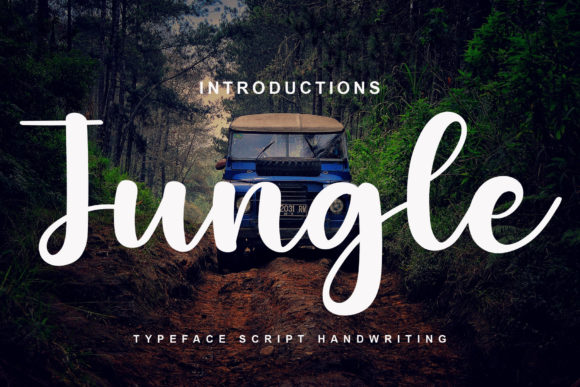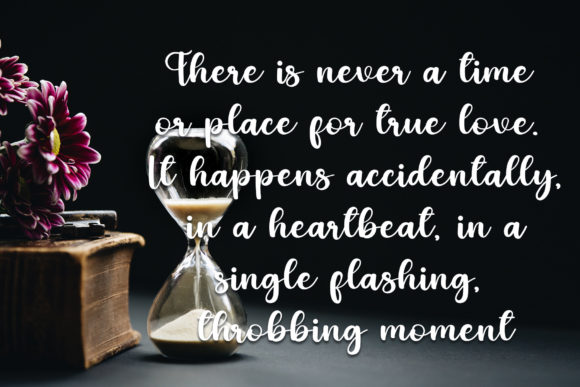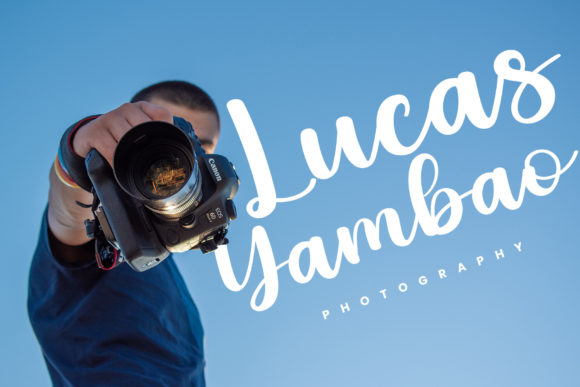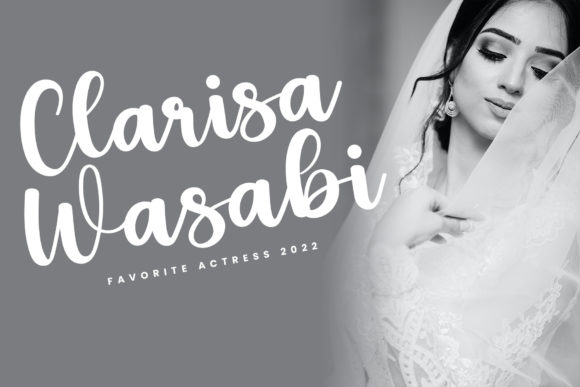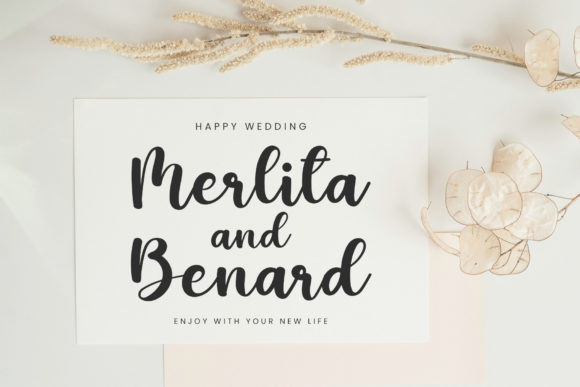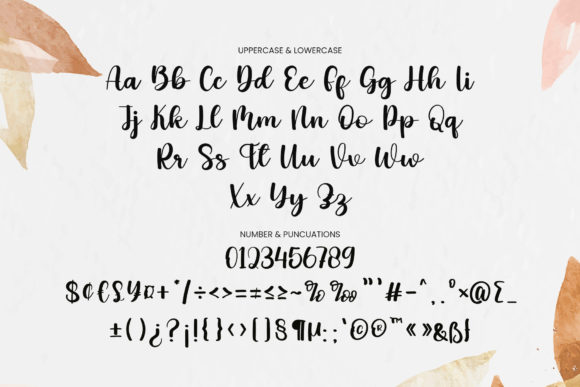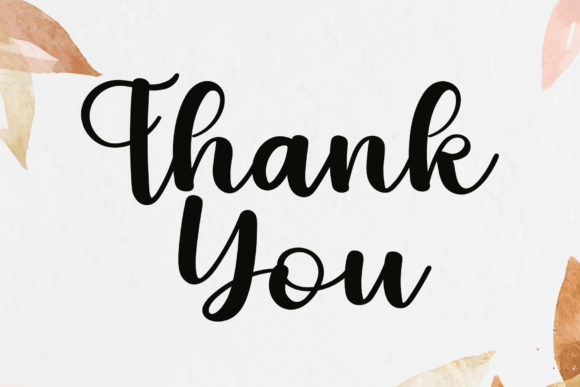
Jungle Font
Jungle, a delightful and approachable handwritten font, injects a sense of fun and friendliness into any design, transforming even the simplest ideas into standout creations. Its unique charm serves as an inspiration for designers looking to infuse a touch of playfulness into their projects, making Jungle a versatile choice for a wide range of design applications.
The handwritten nature of Jungle imparts a genuine and personal feel to your designs, creating a connection with the audience. Whether you’re working on invitations, greeting cards, or other expressive projects, Jungle’s friendly aesthetic adds a warm and inviting touch. Its adaptability ensures that the font can seamlessly integrate into various design themes, allowing you to experiment with different styles while maintaining a cohesive and appealing look.
One of the standout features of Jungle is its PUA encoding, a practical asset for designers seeking easy access to its wealth of glyphs and swashes. This encoding enhances user convenience, enabling effortless exploration of the font’s diverse elements. The availability of numerous glyphs and swashes not only facilitates creative expression but also ensures that your designs can be customized to suit specific preferences, giving you the freedom to craft truly unique and eye-catching visuals.
Jungle’s versatility extends beyond its aesthetic appeal; it has the power to bring a sense of joy and lightheartedness to any project. Whether you’re designing for a playful brand, a children’s book, or a whimsical event, Jungle’s handwritten style can convey the desired emotions, making it an excellent choice for designers who want to evoke positivity and charm through their work.
In summary, Jungle is more than just a font; it’s a source of inspiration and creativity. Its fun and friendly characteristics make it a standout choice for designers looking to infuse their projects with a touch of personality. With the added benefit of PUA encoding, accessing Jungle’s array of glyphs and swashes becomes a seamless and enjoyable process, empowering designers to craft truly exceptional and lovely designs that leave a lasting impression.